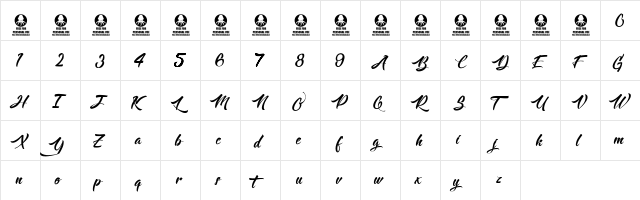
Langoustine Regular
Design Context for Langoustine Typeface
Langoustine is a composed and adaptable typeface that performs quietly and consistently across a wide range of design contexts.